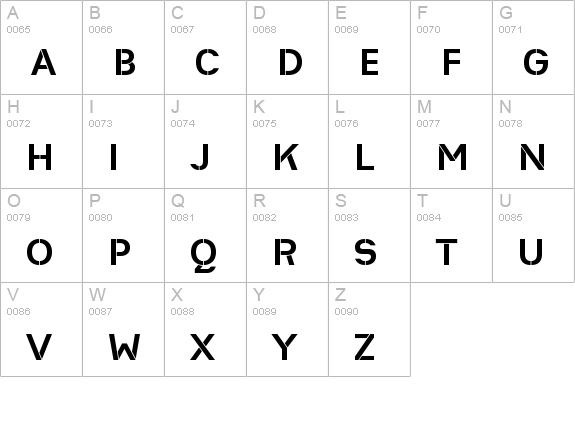
Heimat Stencil Bold is a strong, high-contrast variant in the Heimat typeface family \xE2\x80\x94 well suited to headlines, attention-grabbing titles, and strong calls-to-action.
Heimat Stencil Bold is a striking and modern display font that exudes strength and sophistication. Its bold, stencil-style design gives it a unique and eye-catching look that is perfect for making a statement in any project. Whether you're designing a poster, logo, or website, this font is sure to command attention and leave a lasting impression. The clean lines and sharp edges of Heimat Stencil Bold make it ideal for creating a sleek and contemporary aesthetic. Its versatility allows it to be used in a variety of design applications, from branding to editorial design. This font is a must-have for any designer looking to add a touch of modernity and boldness to their work. Best of all, Heimat Stencil Bold is free to download at FontsMarket.com. This means that you can easily access this stylish font and incorporate it into your projects without any cost. Don't miss out on the opportunity to elevate your designs with the striking appeal of Heimat Stencil Bold. Download it today and see the impact it can make on your creative endeavors.